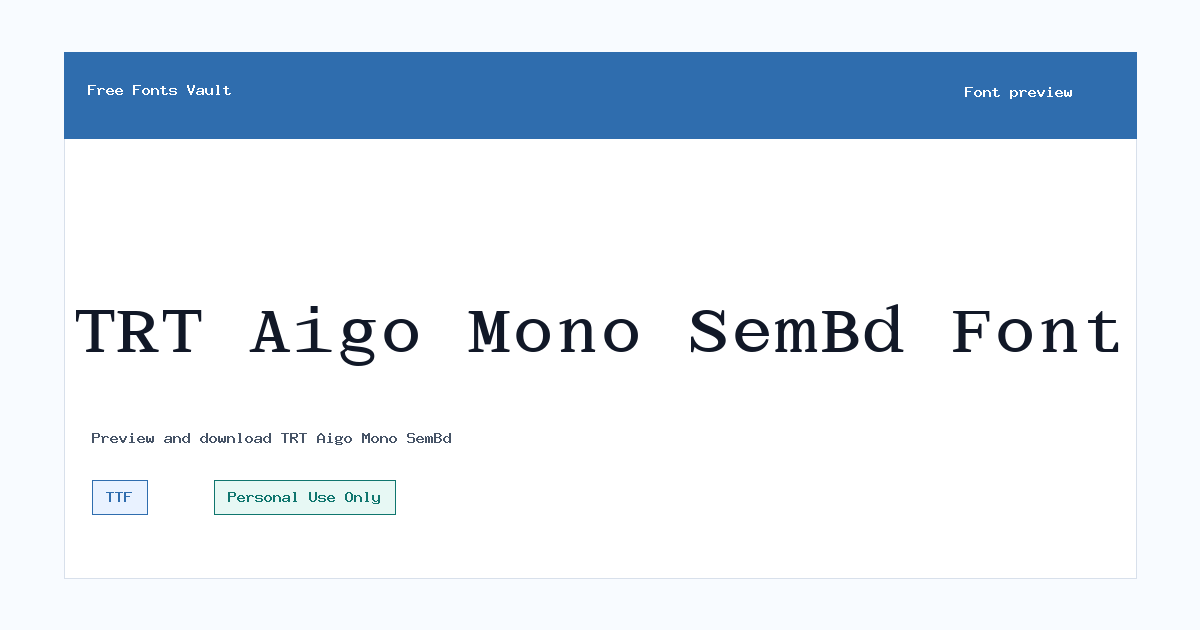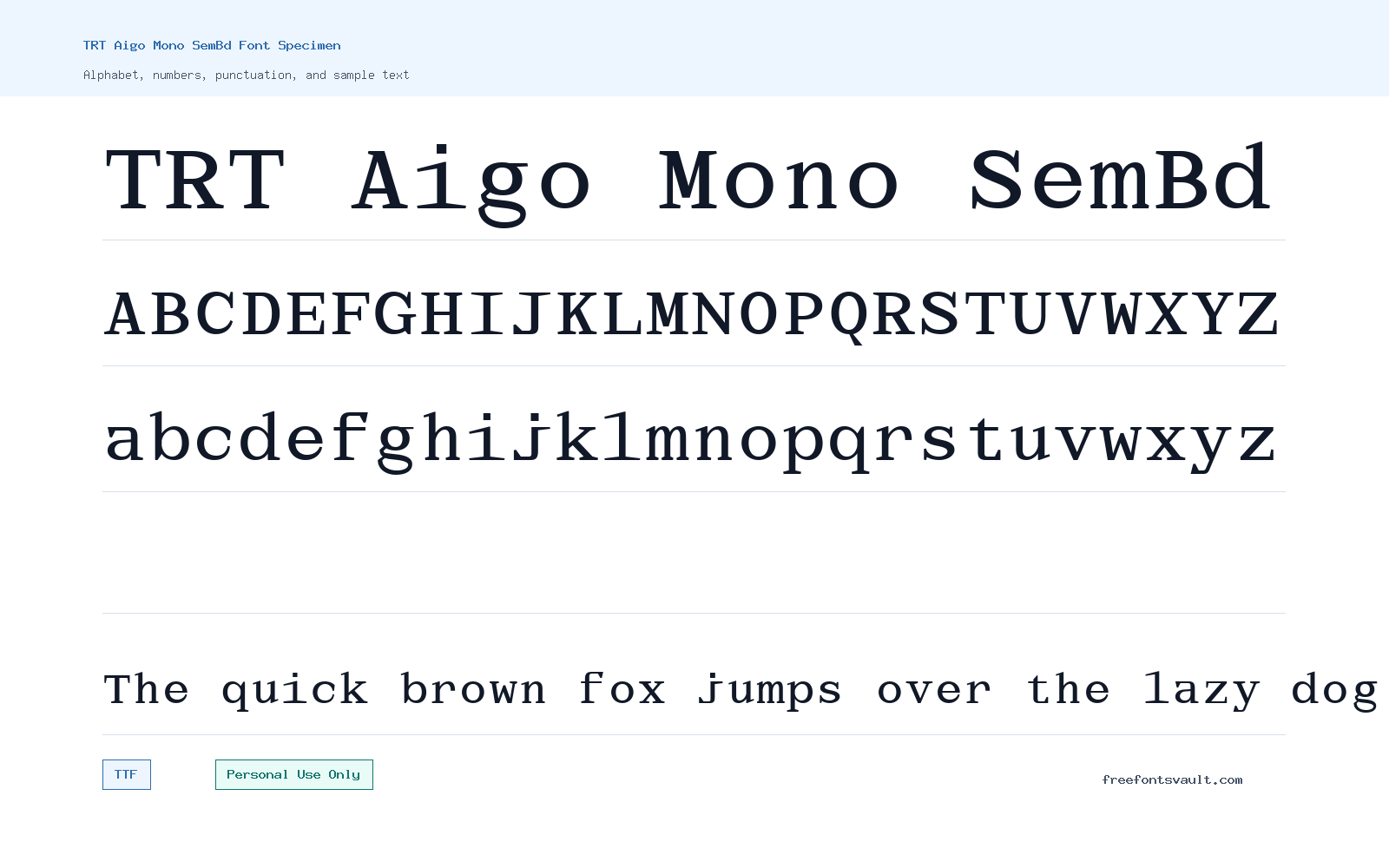
TRT Aigo Mono SemBd
- Designer Achmad Akbar Afiansyah of Truetype
- Foundry Truetype
TRT Aigo Mono SemBd font.
TRT Aigo Mono SemBd is a semibold TrueType font from the TRT Aigo Mono family, made for personal-use design experiments where a firm, structured text style is useful.
About TRT Aigo Mono SemBd Font
TRT Aigo Mono SemBd has the feel of a heavier mono-style display face: steady, compact, and direct. The SemBd name indicates a semibold cut, and the font file is marked with a 700 weight, so it is better suited to text that needs presence than to long paragraphs. Use it when you want words to feel organized and intentional, especially in short settings such as headings, labels, poster text, interface mockups, or brand-study layouts. Because the family name includes Mono, it is a good idea to test spacing carefully in the preview box. Mono-style fonts can make letters feel evenly paced, which works well for technical, editorial, and modern layouts, but they can also create wider-looking words depending on the phrase.
For designers, TRT Aigo Mono SemBd is most useful as a working display choice rather than a full body-copy solution. Try it with short titles, navigation labels, badge text, quote graphics, and strong callouts. In logo exploration, it can help shape a clean wordmark direction, but check every letter pair at the exact size you plan to use. Characters that look balanced in a font preview can feel too tight or too open once they are placed inside a logo, poster, or web header. For web mockups, use it for hero headings, buttons, category labels, code-inspired sections, or visual identity drafts. If the project needs polished production use, confirm the license first and obtain the right permission for commercial work.
- Semibold 700 weight for stronger headings, labels, and display text
- Normal style cut, useful for clean upright text settings
- Mono-style family naming, helpful for structured layouts and technical-looking compositions
- Works best in short text where spacing and shape can be checked carefully
- Logo concepts and wordmark drafts
- Web mockup headings and interface labels
- Editorial covers, badges, and section headers
- Social media graphics with short, direct wording
- Technical, coding, or structured layout concepts
TRT Aigo Mono SemBd is credited to Achmad Akbar Afiansyah of Truetype, with Truetype listed as the foundry.
Start by testing the exact word or phrase you plan to use. Semibold mono-style lettering can look confident in short titles, but it may feel dense in long sentences. For posters and social graphics, give the text enough breathing room and avoid squeezing it into narrow boxes. For logo work, adjust tracking manually and inspect repeated letters, punctuation, and spacing around wide characters. For web mockups, pair it with a simpler, highly readable text face for paragraphs, captions, and long UI copy. A neutral sans serif can keep the layout clean, while a quiet serif can add contrast if the design needs a more editorial tone.
What does SemBd mean in the font name?
SemBd commonly refers to semibold. The font file is also marked with a 700 weight, which matches a heavier text style.
Can I use TRT Aigo Mono SemBd for a logo?
Is TRT Aigo Mono SemBd good for body text?
It is better for short text, headings, labels, and display use. The semibold weight may become heavy in long paragraphs, so pair it with a more readable text font for body copy.
What should I pair with TRT Aigo Mono SemBd?
Pair it with a clean sans serif for a modern interface look, or with a restrained serif for editorial contrast. Keep the companion font lighter so the semibold display text remains the focus.
Who designed TRT Aigo Mono SemBd?
The font is credited to Achmad Akbar Afiansyah of Truetype.